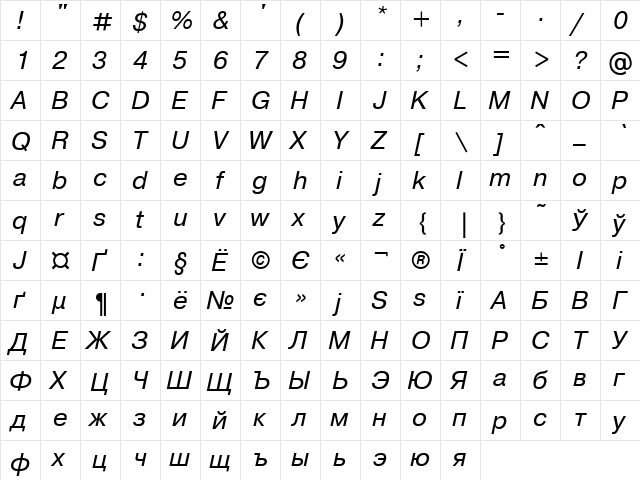
UkrainianPragmatica Italic
Design Context for UkrainianPragmatica Typeface
UkrainianPragmatica is a composed and adaptable typeface that performs quietly and consistently across a wide range of design contexts. Its italic angle brings a sense of urgency and motion to the letterforms.
Pro Tip: Try UkrainianPragmatica for annotation and caption copy alongside an upright companion — the contrast in angle creates a dynamic but ordered typographic system.